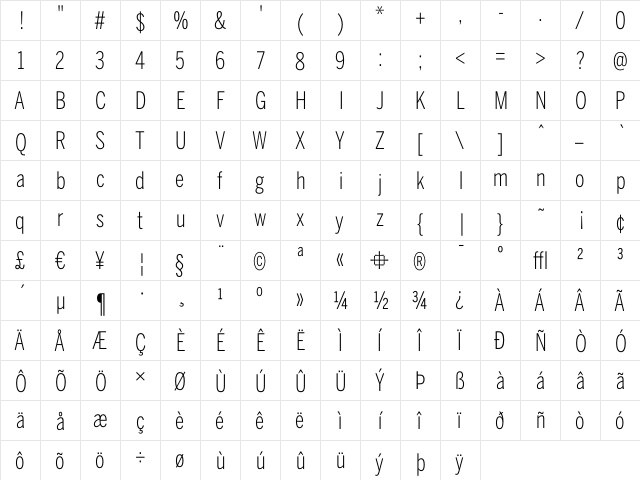
BentonSans ExtraCondensed Light Font Preview
Design Context for BentonSans Typeface
BentonSans takes a measured approach to typography — its balanced proportions and neutral character make it a reliable workhorse for both digital and print work. The delicate stroke weight brings airiness and refinement to layouts. Its narrow stance lets it pack a punch even in space-constrained designs.